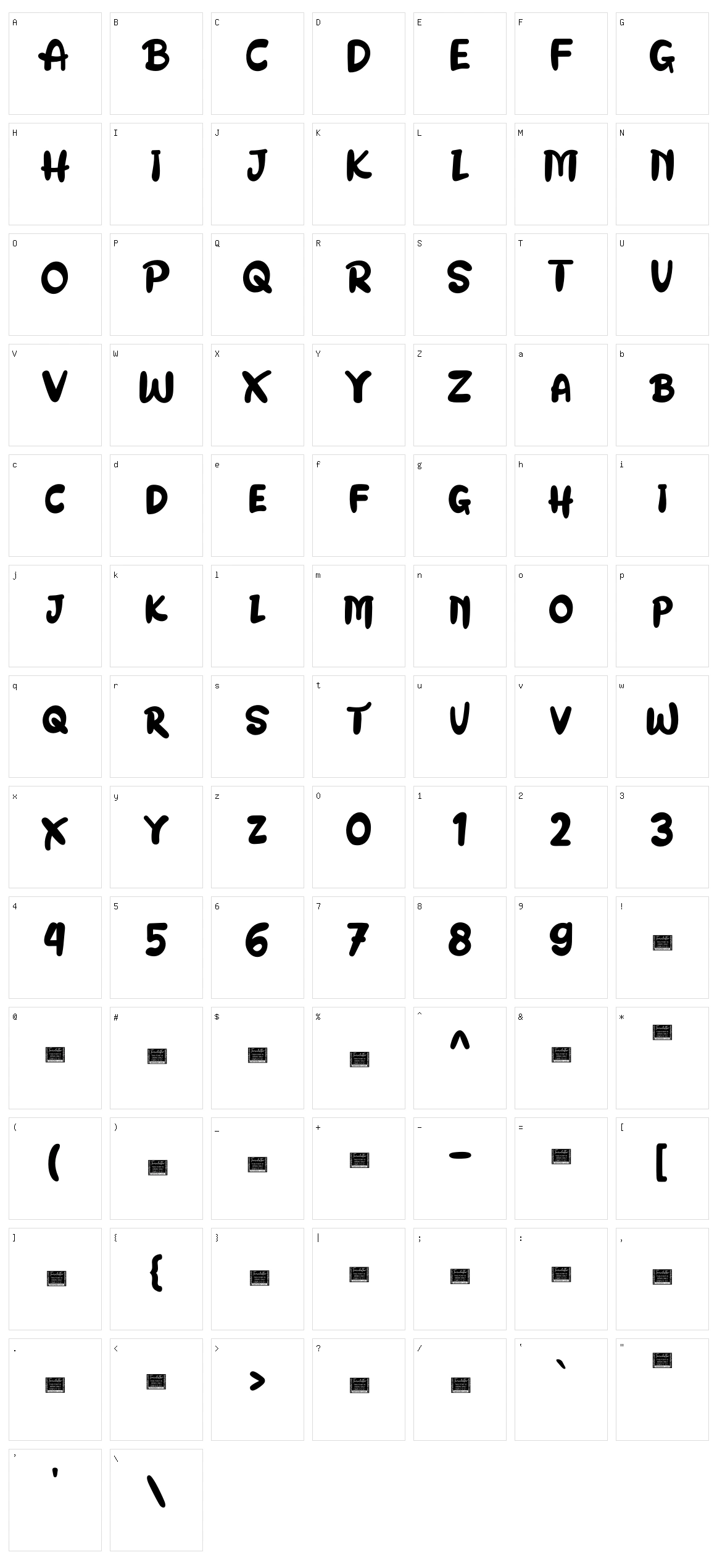
The free font Allay is carefully designed by twinletter, showcasing a thoughtful balance of creativity and usability and falls under the Cartoon font style. When you download the ZIP file, it contains only 99.96 KB of font files, making it lightweight and quick to download. Please review the license details below to understand permitted usage and distribution rights. If license information is not available, we recommend using this font for personal projects only or contacting the author directly for commercial usage permissions.